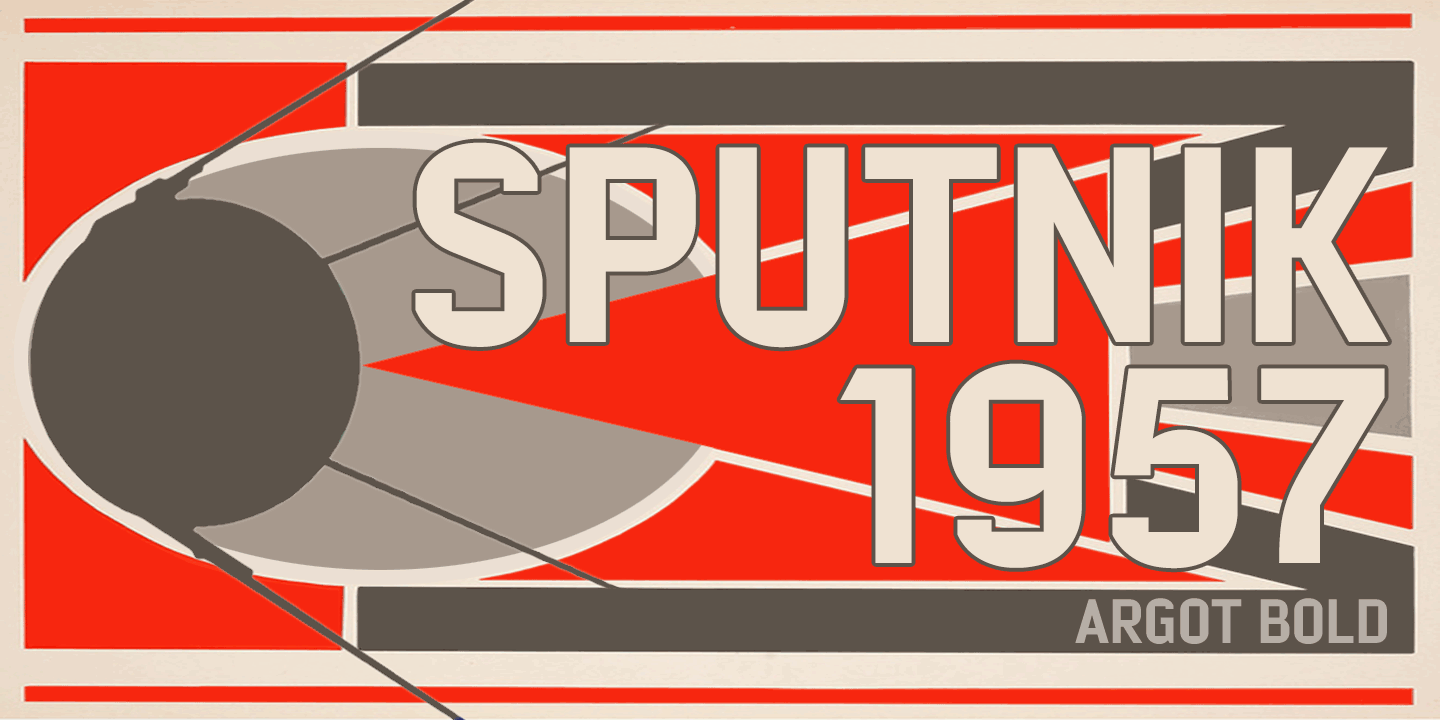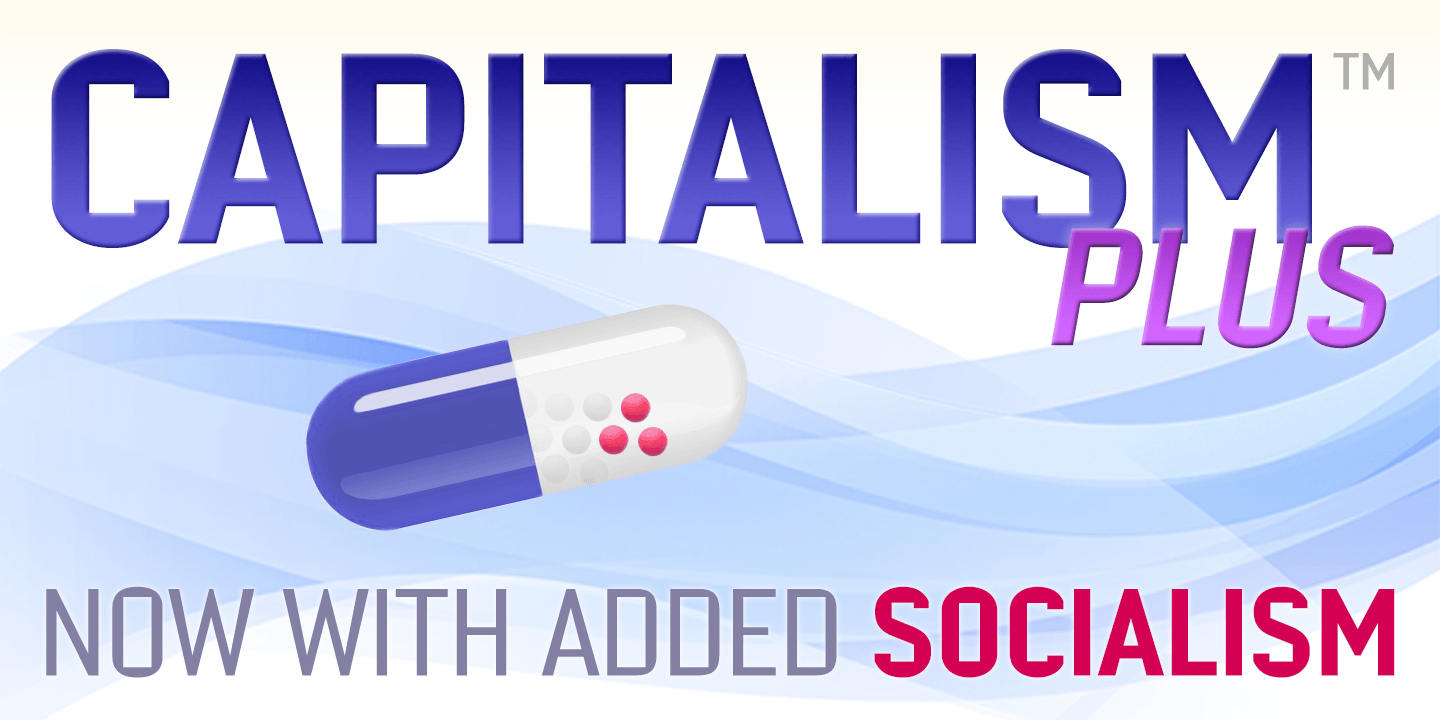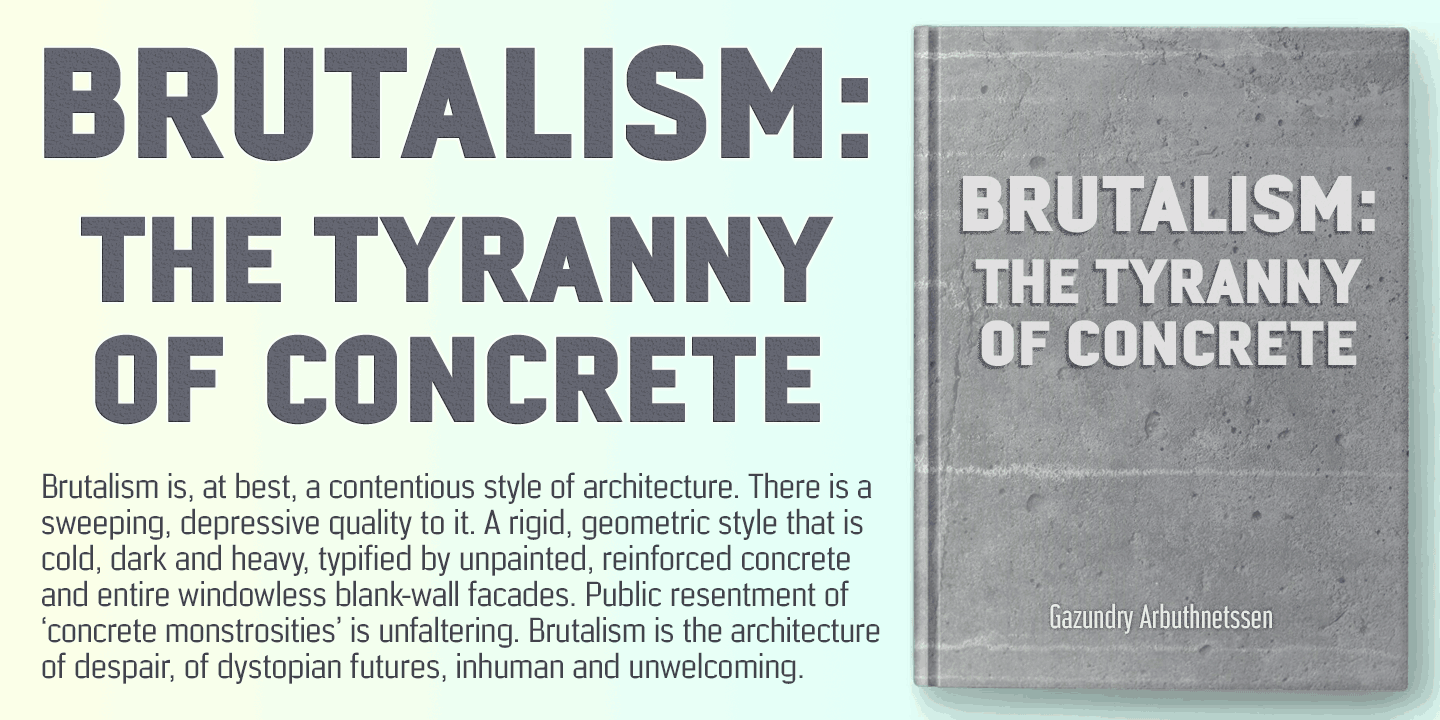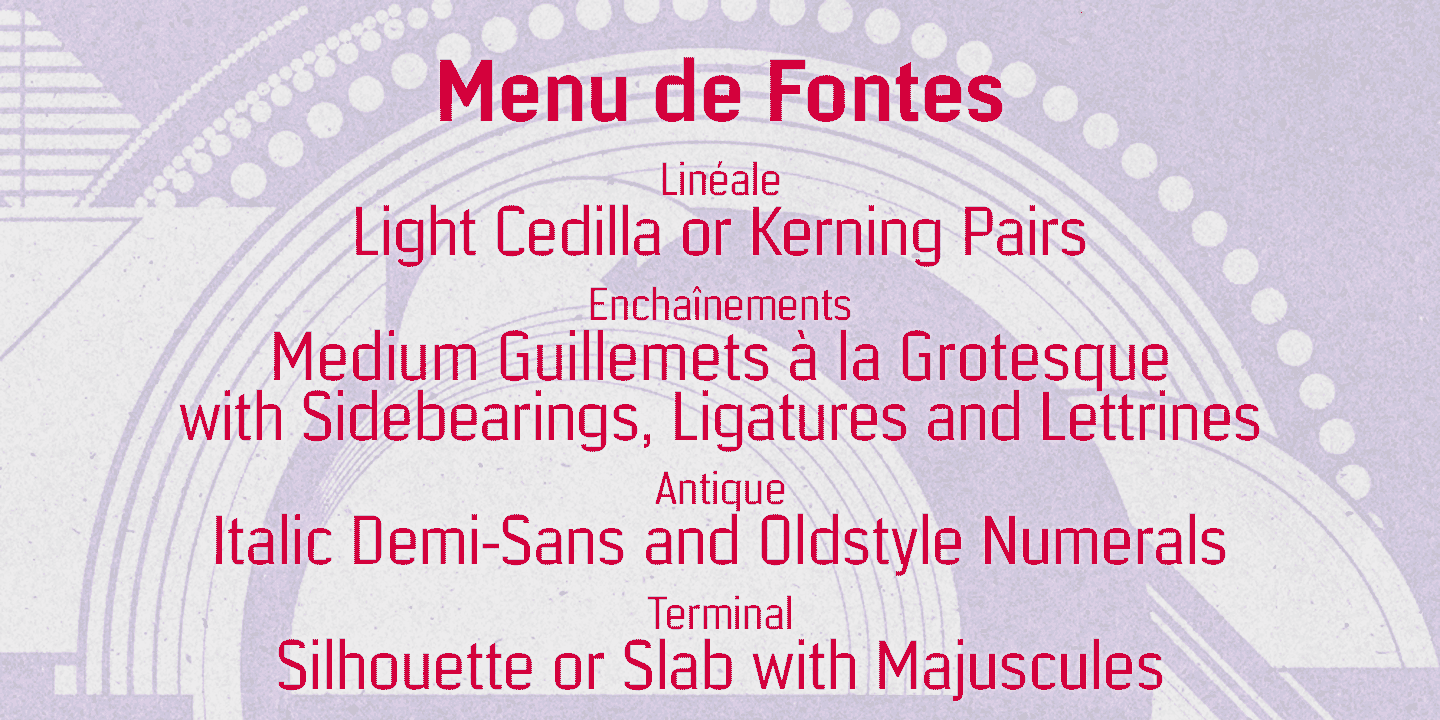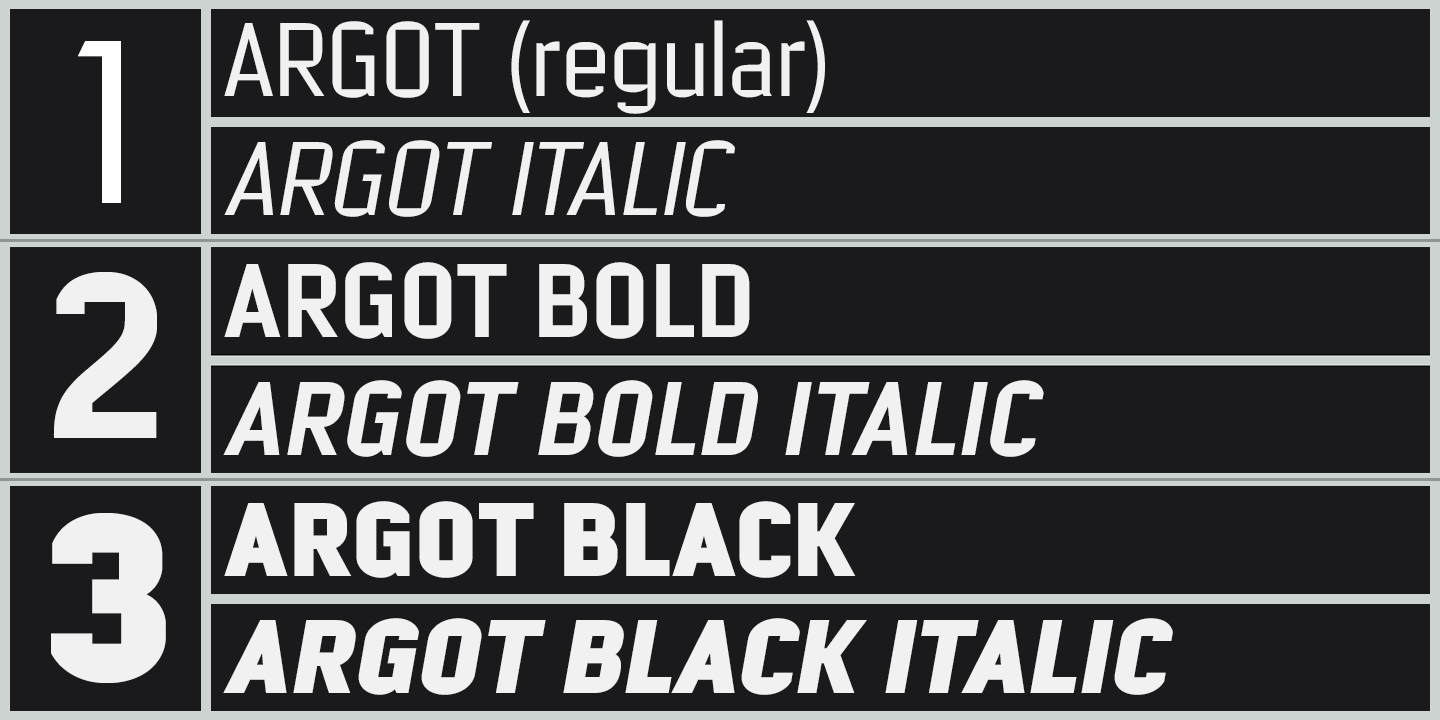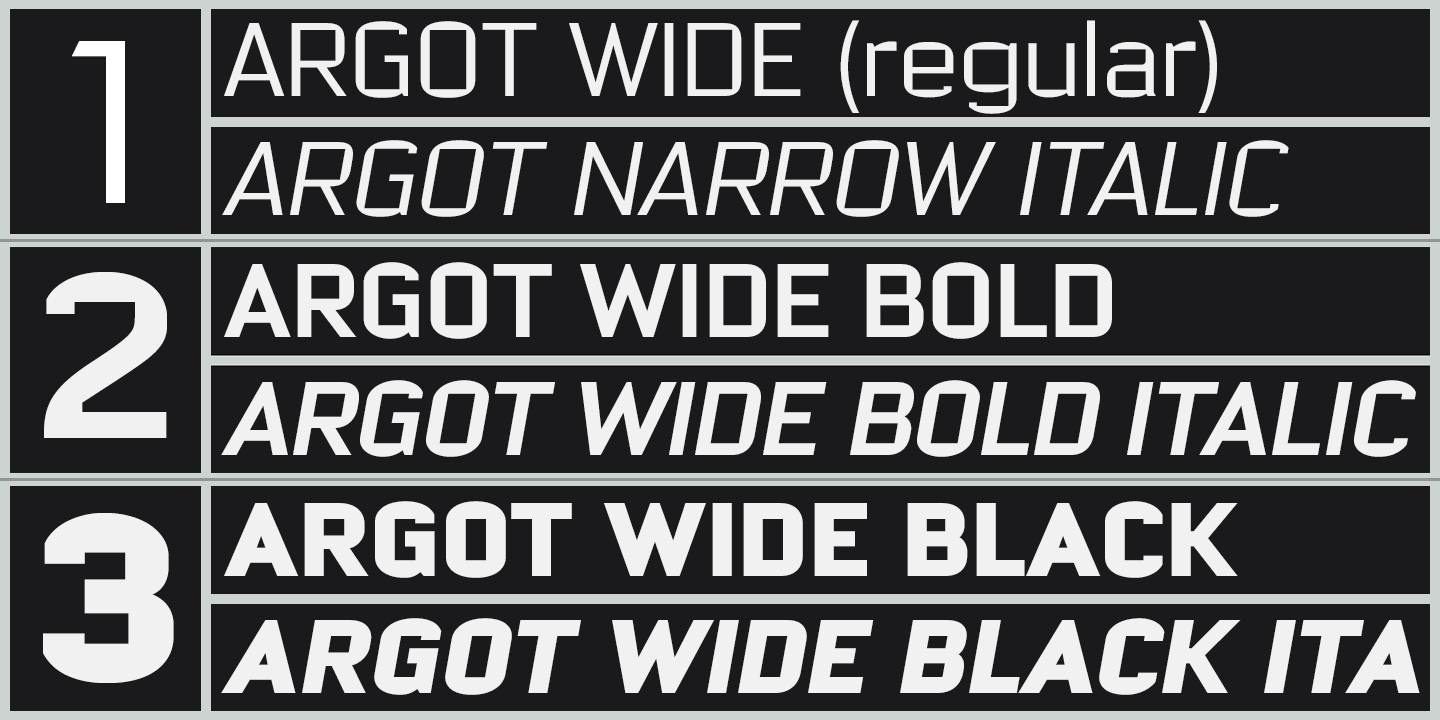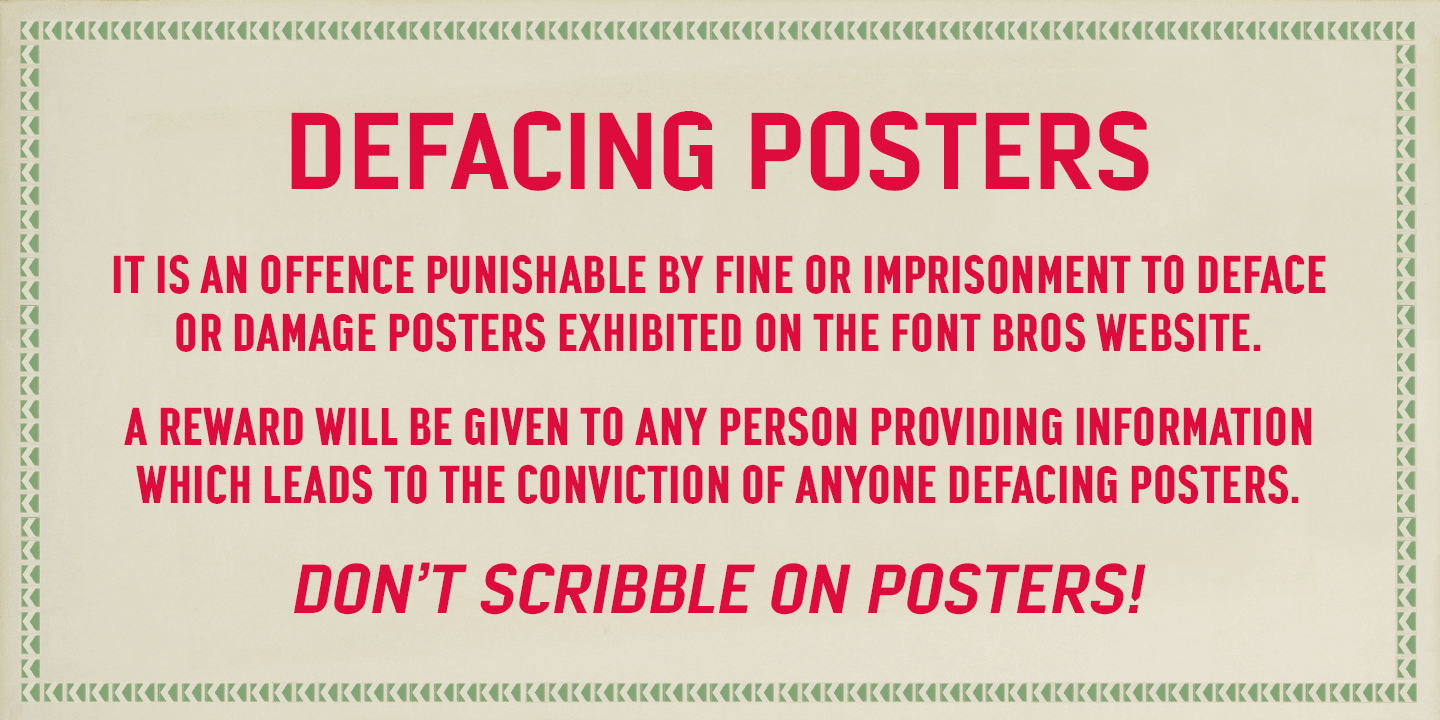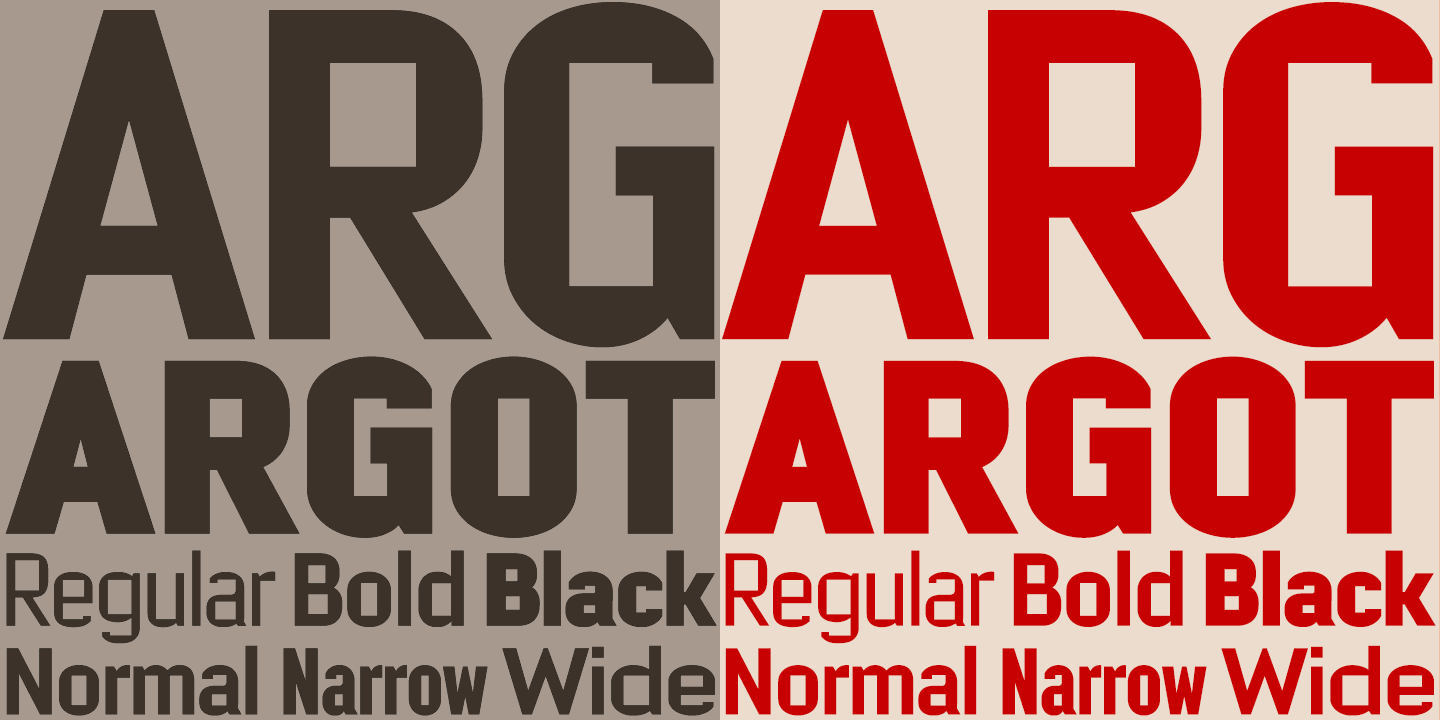
Argot
Font Family by K-Type
Argot is inspired by condensed grotesque letterforms and would be a monolinear sans except for an unorthodox disparity between inner and outer shapes. Elegantly curved outlines contrast starkly with austere rectangular counters, suggesting a no-frills functionality, 20th century modernism, or an unsettling discordance. However, the squared off inner spaces do add clarity and crispness.
Argot is available in three widths: Normal, Narrow and Wide. Each width is supplied in three weights: Regular, Bold and Black—with corresponding italics (obliques).